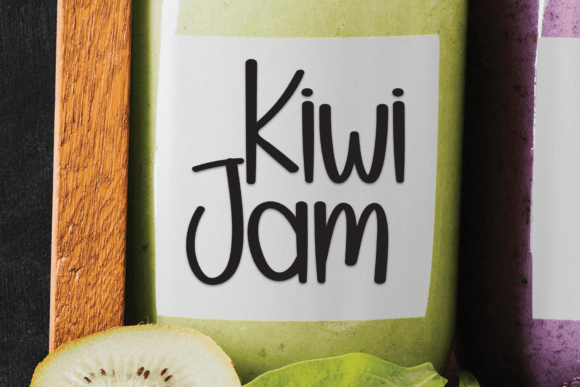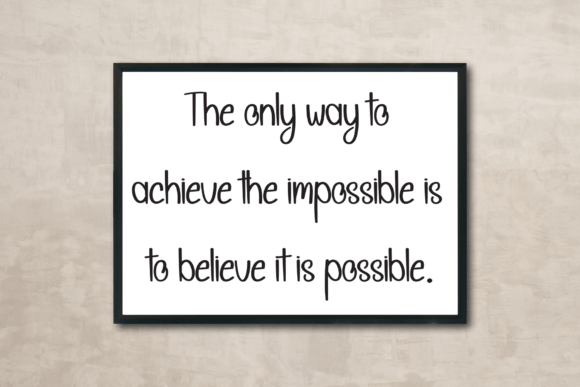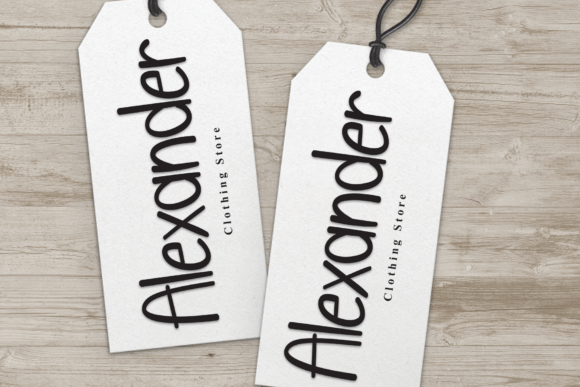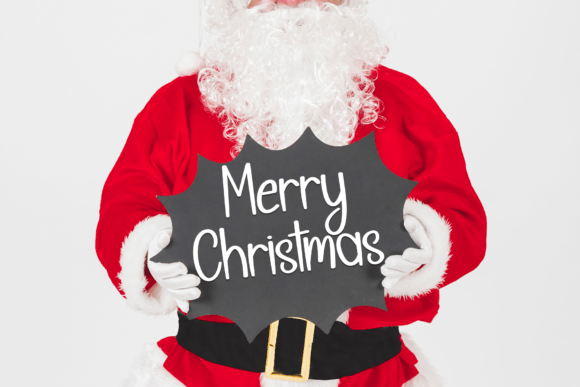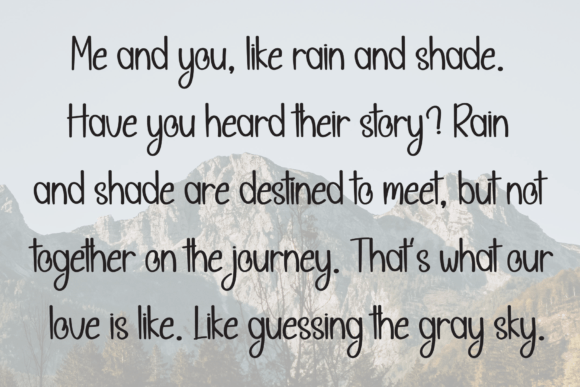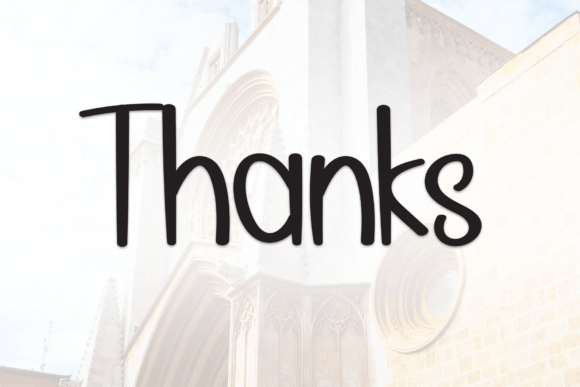
Introduction to Histories Font
As a designer, you’ve been there – staring at a blank canvas, searching for the perfect font to bring your creative project to life. It’s that magical moment when the right typeface clicks, and your design transforms from ordinary to extraordinary. For many, that moment comes with the discovery of Histories Font, a charming display font that exudes warmth and personality.
With its delightful blend of sweetness and whimsy, Histories Font is the perfect addition to any design project seeking a dash of fun. Whether you’re crafting enchanting wedding invitations, playful greeting cards, or simply want to add a touch of personality to your branding, this font is sure to bring a smile to your face and your designs to life.
Key Features of Histories Font
- High-quality design: Histories Font is crafted with precision to deliver a unique and elegant look for your creative project.
- Unique characteristics: Histories Font features a distinctive blend of vintage and modern elements, setting it apart from other fonts in its class.
- Perfect for creative projects: Whether you’re working on a book, magazine, or website, Histories Font is an excellent choice for adding a touch of elegance and sophistication.
Honest Review: Histories Font
As a designer, I’m always on the lookout for high-quality design resources to elevate my creative projects. Recently, I had the chance to try out the Histories Font, and I’m excited to share my honest review with you.
- ✨ The Histories Font has a unique, elegant design that’s perfect for adding a touch of sophistication to any project.
- ✨ The transparent background option allows for seamless integration with various design elements.
- ⚠️ The font selection is limited, and I found myself wishing for more options to choose from.
- ⚠️ The font may not be suitable for bold or large-scale use, as it can become difficult to read.
Overall, I’m impressed with the Histories Font’s potential, but I think it’s essential to be aware of its limitations. If you’re looking for a unique, elegant font for your creative project, I’d definitely recommend giving it a try. Just be sure to use it thoughtfully and within its limitations.
Common Use Cases for Histories Font
The Histories Font is ideal for creating invitations, greeting cards, and other design elements that require a touch of sophistication. You can also use it to create logos, typography-based designs, and other creative projects that demand a high-quality design resource.